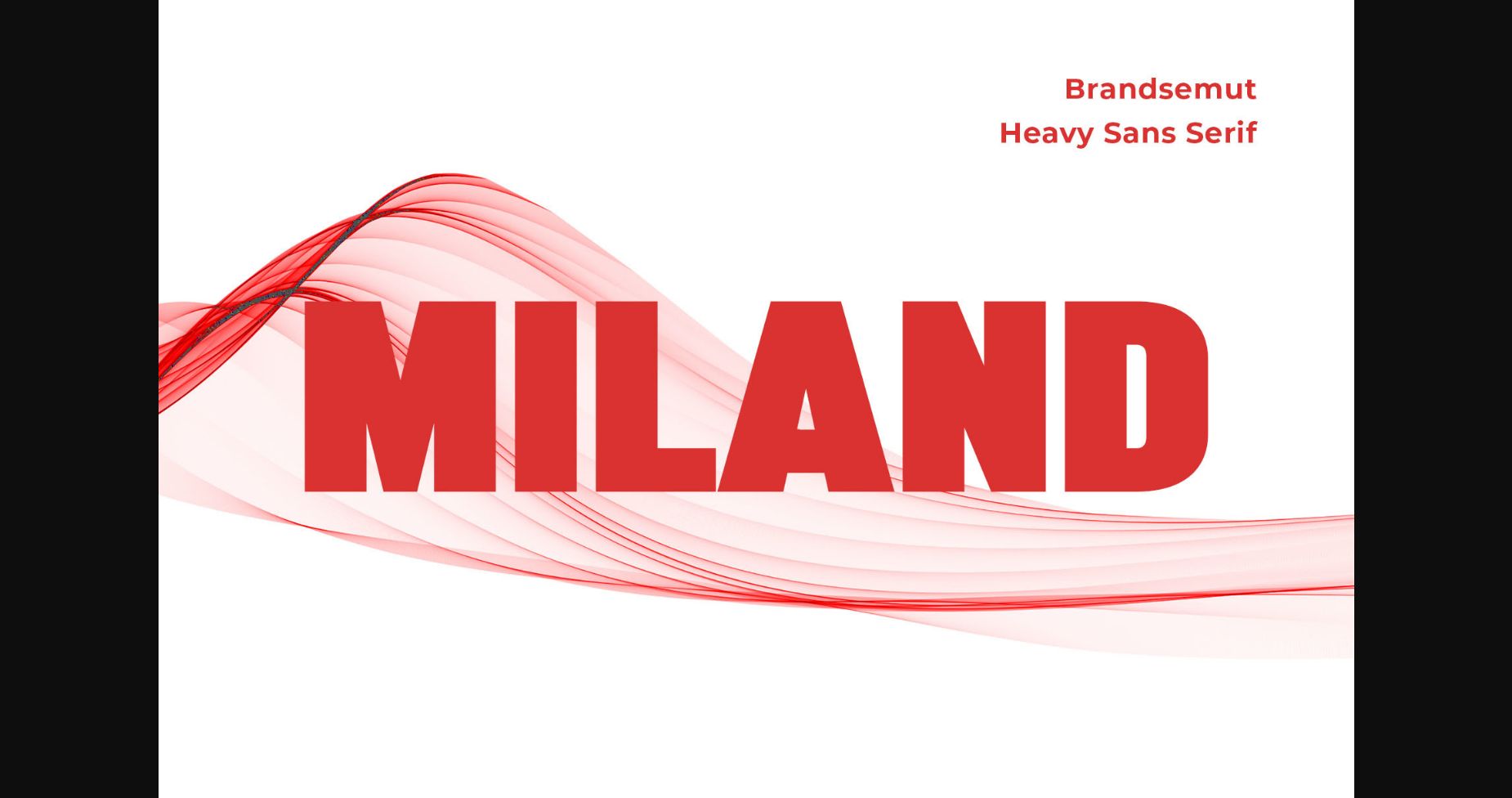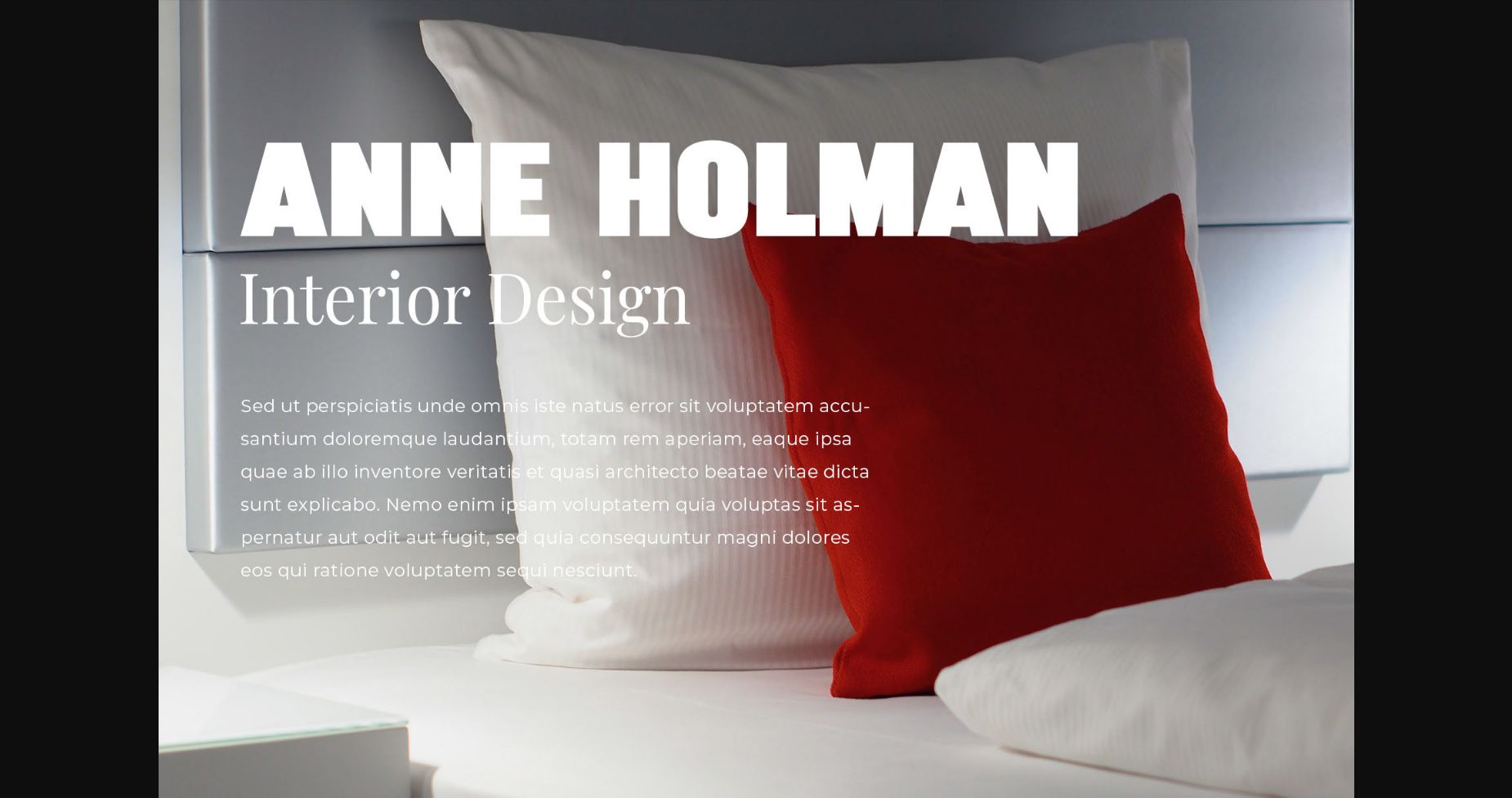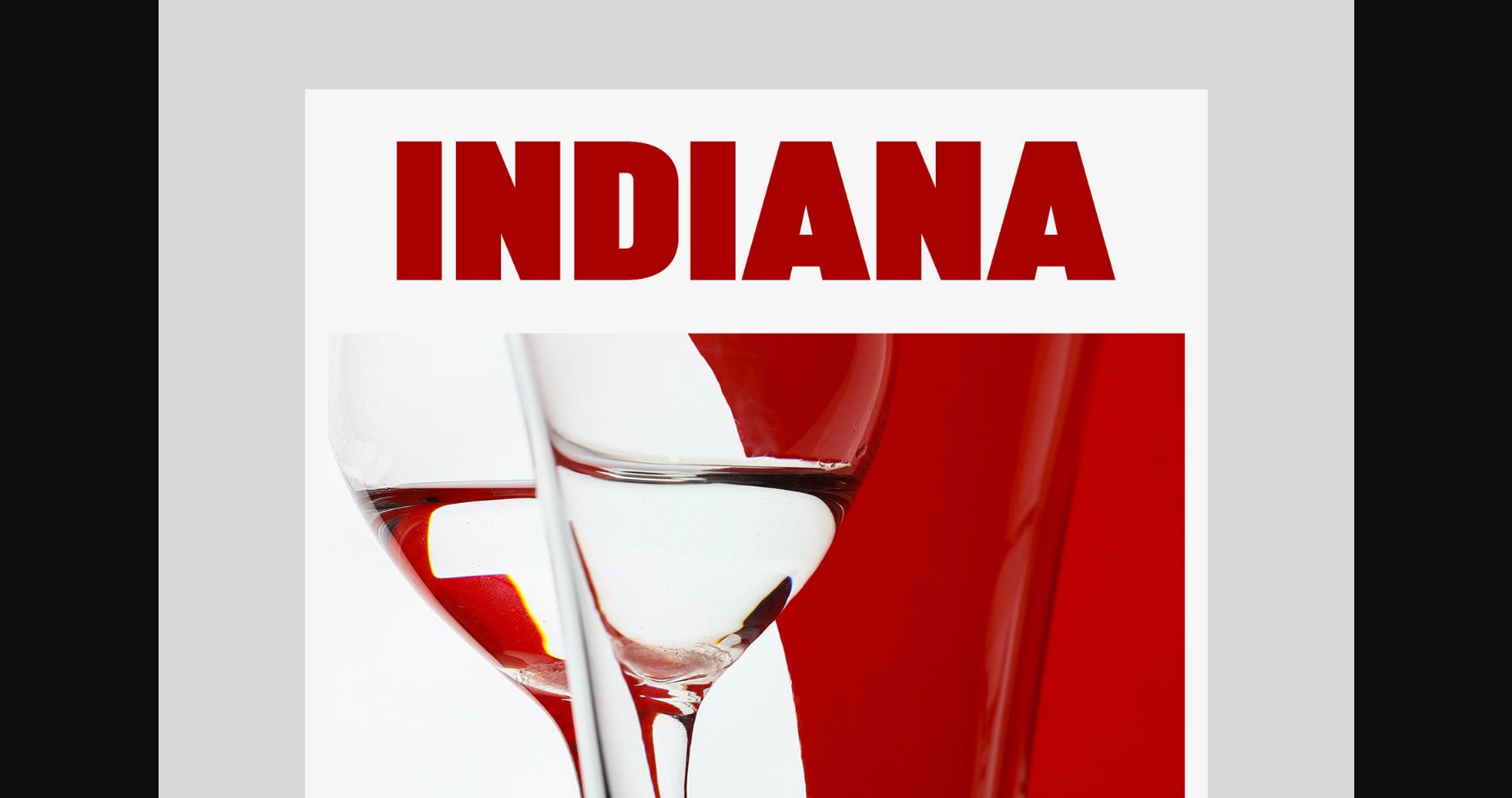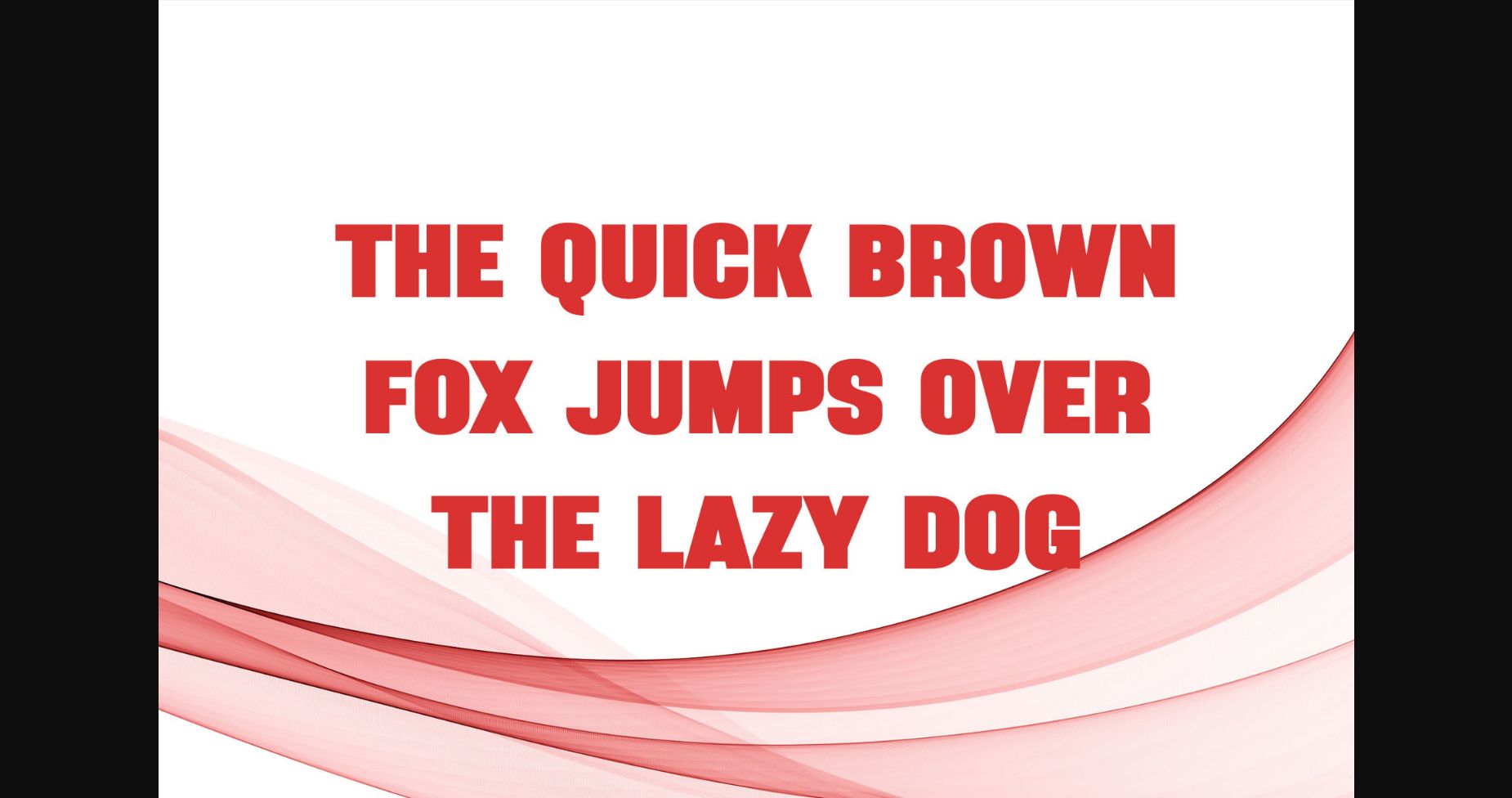
About Miland Font
Miland is a modern and simple font, best used as a display for headings, logos, branding, magazines, product packaging, and invitations. Miland come with clean lines and smooth curves giving any project an extra touch of class.